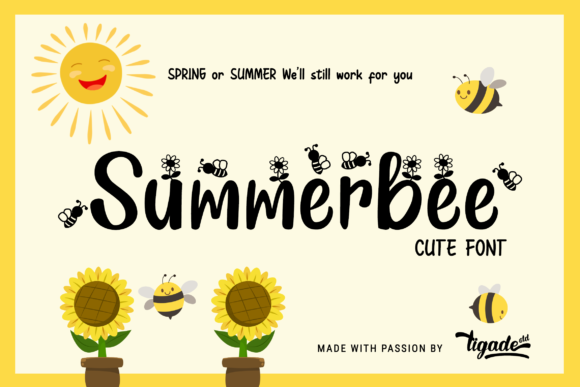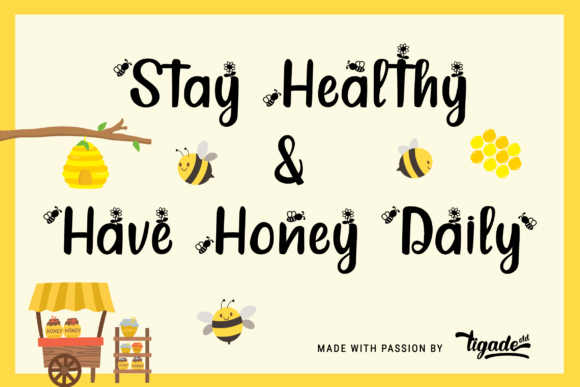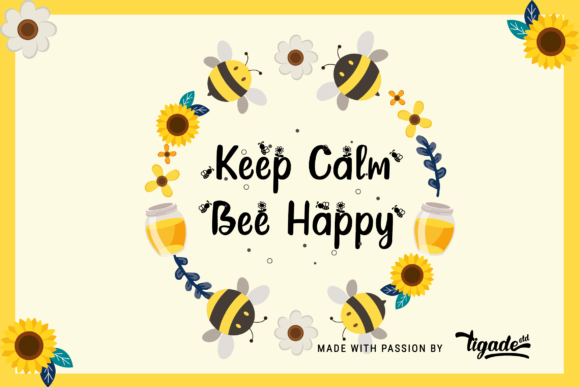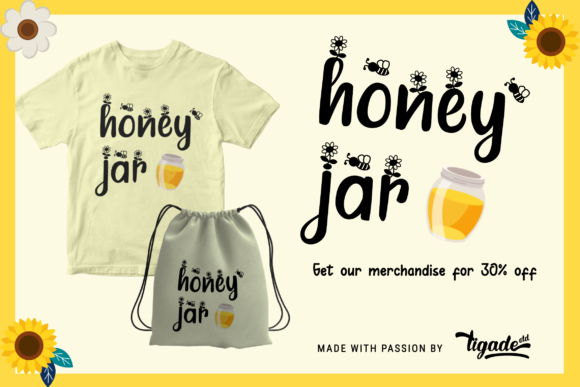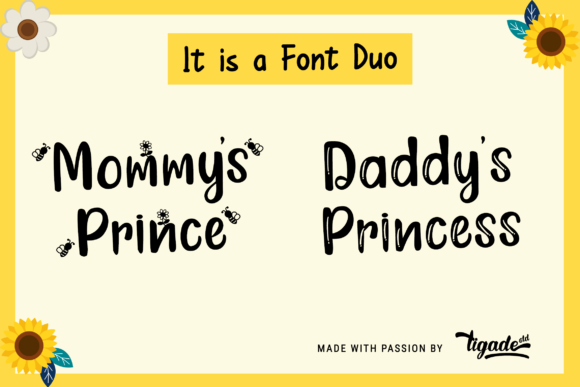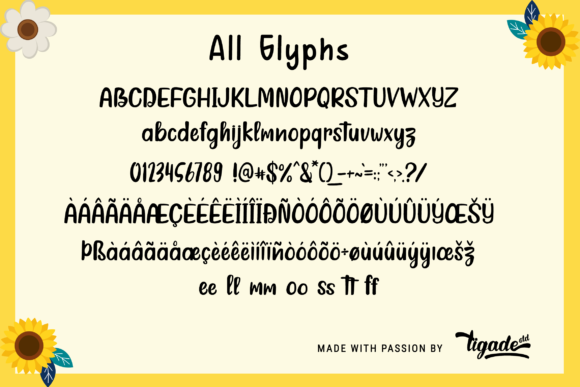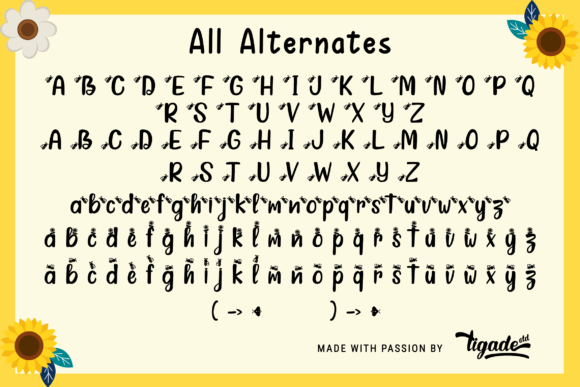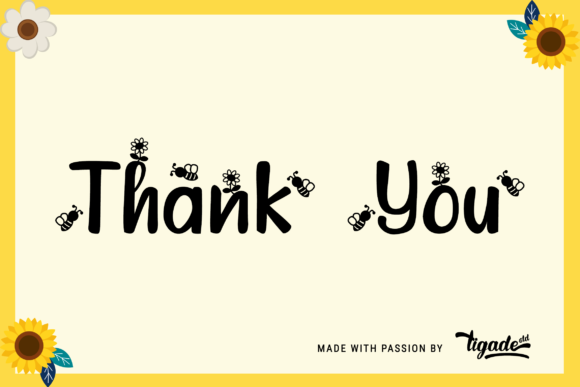
Summerbee Font
About Summerbee Font
Summerbee is an enchanting handwritten font, designed to easily become a true favorite. Clean and a little bit quirky, this font is the perfect fit for all of your logos, branding, social media, and crafty DIY projects.